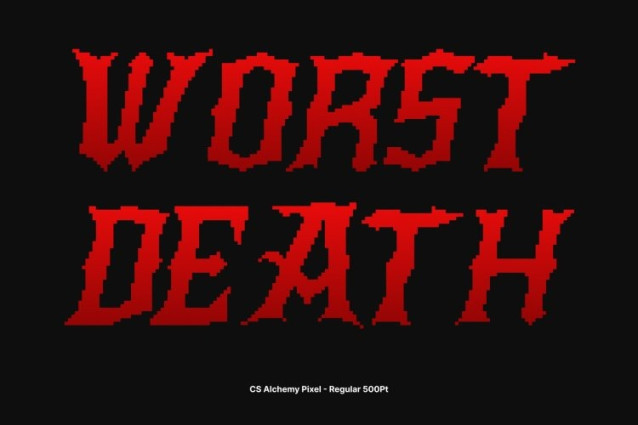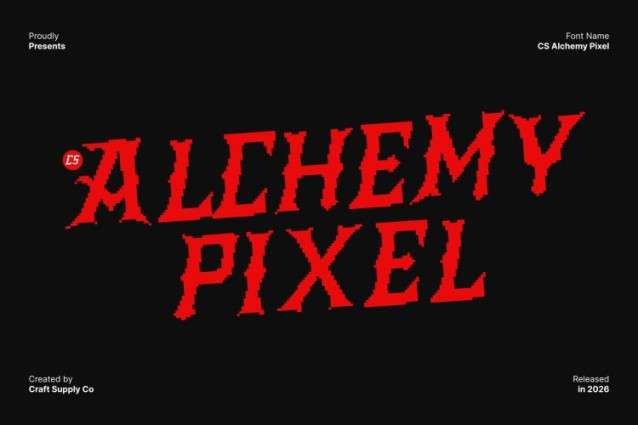
CS Alchemy Pixel Font This is a black metal display font that channels the raw energy and rebellious spirit of extreme music through a distinctive pixel aesthetic. Jagged spikes, sharp edges, and chaotic forms are reconstructed with pixel details, creating a brutal visual language that feels both old-digital and fiercely modern.
Chaotic Pixel Letterforms with Aggressive Energy
At its core, this font features uneven, spiked letterforms built from rigid pixel structures. The rough geometry and distorted rhythm amplify its anarchic presence, evoking the harshness of early digital screens and 8-bit brutality. This deliberate chaos captures attention instantly, making each word feel loud, defiant, and uncompromising.
Dark Aesthetic Meets Retro-Digital Expression
Beyond aggression, this font carries an artistic depth rooted in darkness and experimentation. The pixel texture adds an old-school digital feel, blending retro game-era visuals with extreme metal aesthetics. This fusion creates a unique balance between brutality and visual intrigue, expressing both chaos and creativity in a striking, memorable way.
Perfect for Extreme, Edgy, and Underground Projects
This font is ideal for band logos, album covers, metal posters, underground fashion, and experimental branding. Its combination of black metal aggression and pixelated retro style makes it a powerful choice for projects that aim to feel dark, raw, and digitally rebellious. This font delivers an unforgettable impact bold, chaotic, and unapologetically intense.